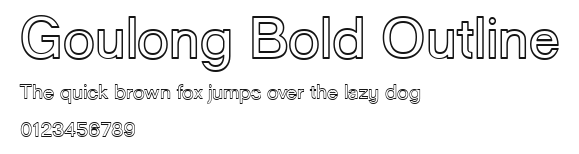
About Goulong Bold Outline.ttf
Goulong Bold Outline.ttf is a modern, elegant sans-serif font designed for ultimate readability and visual harmony. Perfect for branding, headlines, web design, and print materials.